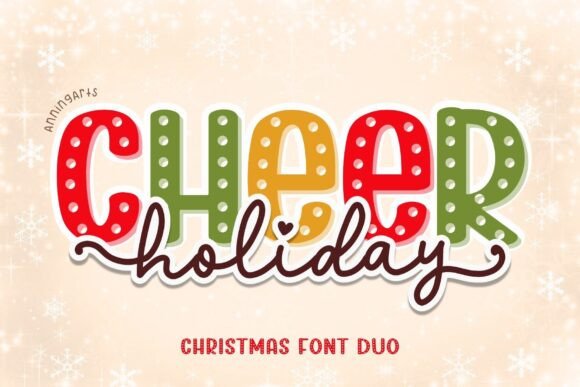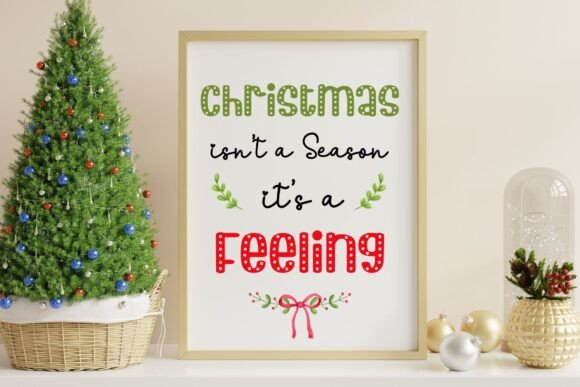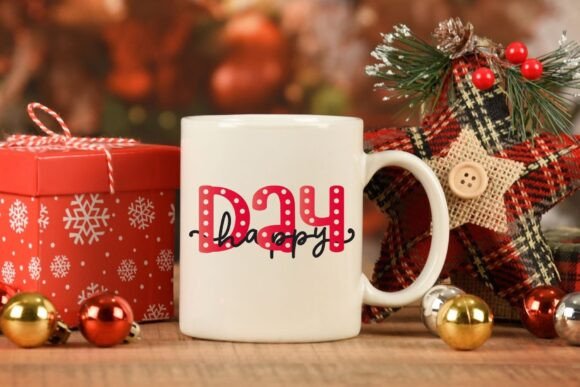
Holiday Cheer Font: A Cute Display Font for Cricut Crafts
About the Holiday Cheer Font
Explore the possibilities with Holiday Cheer Font, a font that offers both beauty and functionality. Holiday Cheer is a playful font duo. This set consists of a script font and a handwritten font, providing a wide range of unique and attention-grabbing design choices. You can utilize this pair of fonts to create various designs, including mugs, bags, shirts, pillows, and more.
Holiday Cheer excels in projects requiring a lighthearted and approachable feel. It’s ideal for branding initiatives targeting younger demographics, festive packaging designs, and eye-catching social media graphics. Consider it for short headlines, slogans, and decorative elements where its playful nature shines. However, avoid using it for large blocks of body text or UI elements; its informal style is less suitable for readability in extensive content.
Pairing Holiday Cheer with a clean sans-serif like Open Sans for body text creates a balanced and professional look. For a more playful aesthetic, consider pairing the script with a rounded geometric sans-serif such as Futura for a modern contrast. A classic serif font like Garamond would offer a sophisticated counterpoint, adding a touch of elegance to the overall design.
The font’s core personality is undeniably cheerful and friendly, making it perfect for brands and projects that value approachability and warmth. Its hand-drawn quality brings a sense of authenticity, while the contrasting styles allow for versatility within a single design.